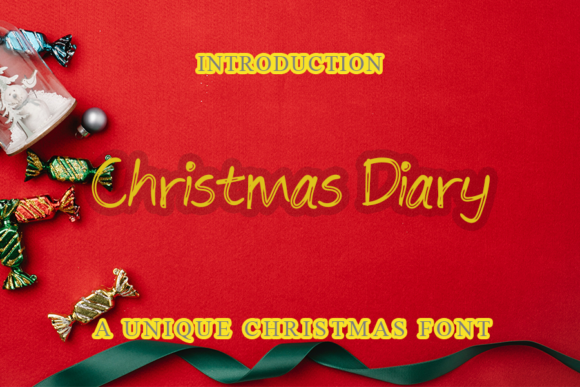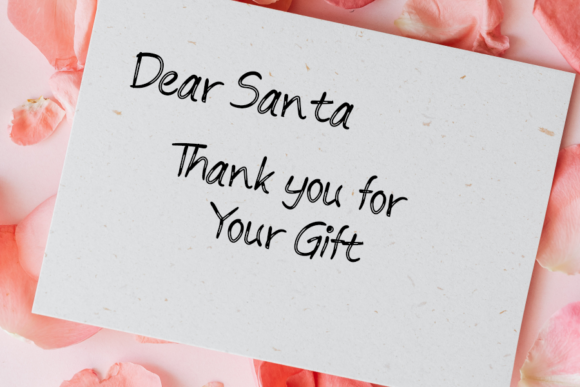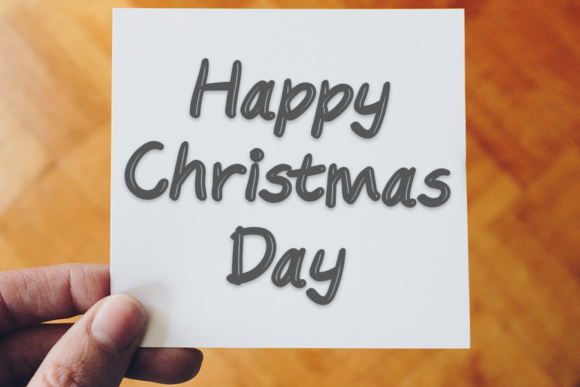
Christmas Diary
About Christmas Diary Font
Christmas Diary is a simple handwritten font. It has a trendy look, and it is ideal for writing joyful and fun holiday letters. Add this font to your favorite creative ideas, and notice how it makes them come alive!